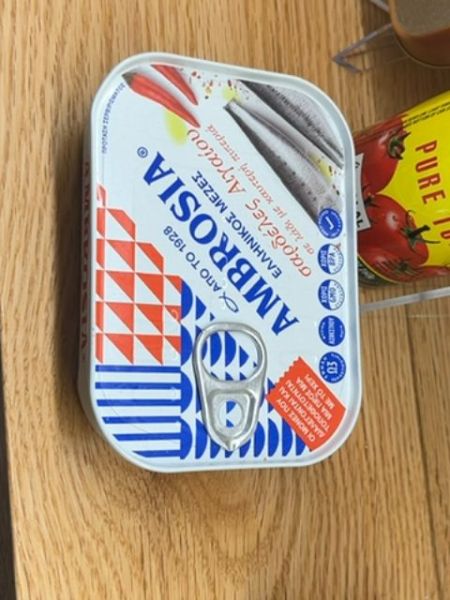
Ambrósia Sardines
A canned sardine product preserved in oil. It is meant for quick meals, snacks, or as an ingredient in various dishes.
1928
Portugal
The typography is bold and sans-serif, providing a modern and clean look. The use of uppercase lettering emphasizes the brand name 'AMBRÓSIA,' making it easily recognizable. The font style complements the geometric patterns on the packaging, adding to the overall visual appeal.
The packaging is a compact, rectangular metal can with a pull-tab for easy opening. It features colorful, bold graphics with blues and reds that make it stand out on the shelf.